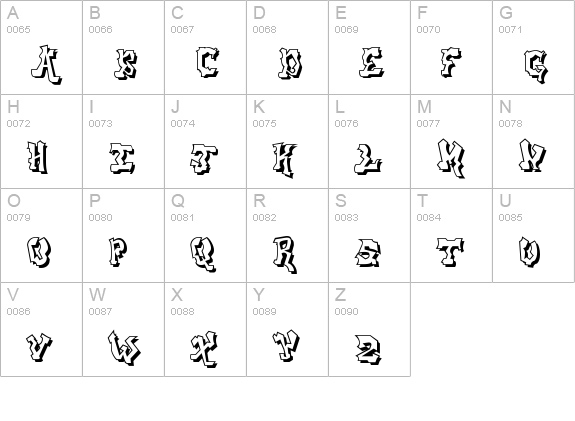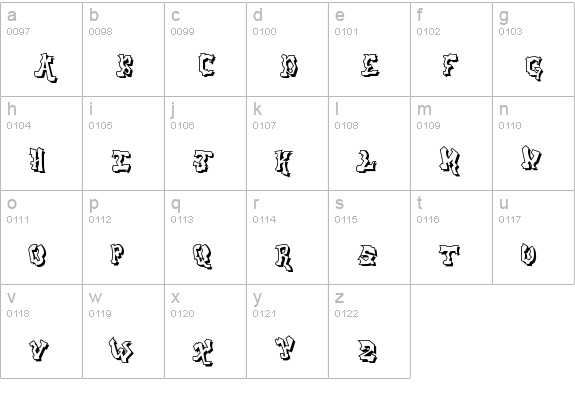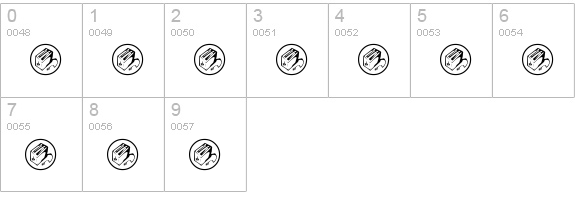
aerosol menace shadow Font Details
Introducing the Aerosol Menace Shadow Font - a bold and dynamic typeface that exudes urban energy and street style. This edgy font features a unique shadow effect that adds depth and impact to your designs. Perfect for capturing attention and making a statement, Aerosol Menace Shadow Font is ideal for posters, flyers, logos, and more. What's even better? This font is absolutely free to download at FontsMarket.com! Don't miss out on the opportunity to enhance your projects with this eye-catching typeface. Embrace the rebellious spirit of the streets with Aerosol Menace Shadow Font and let your creativity shine!